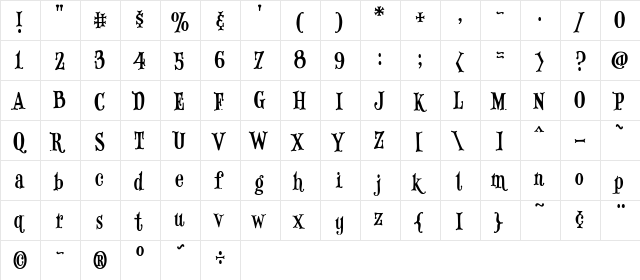
CCPassThePort Regular
| Foundry | Active Images |
| Designer | John 'JG' Roshell |
Design Context for CCPassThePort Typeface
CCPassThePort is a composed and adaptable typeface that performs quietly and consistently across a wide range of design contexts.